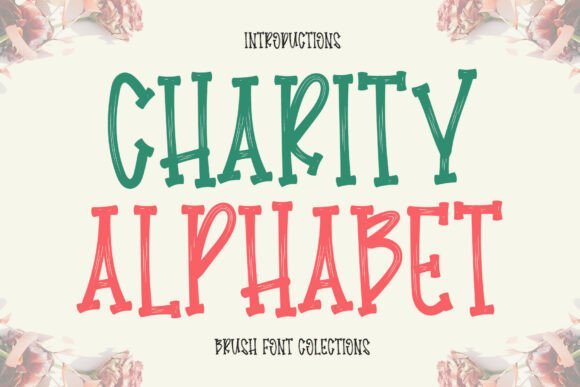
Get Ready to Make a Statement with the Charity Alphabet Font
Have you ever stared at a blank design canvas, trying to find the perfect font to convey the energy and passion behind your project? That’s exactly what happened to me when I first laid eyes on the Charity Alphabet Font. Its bold, playful energy is infectious, and I knew I had to dive in and explore its possibilities.
The Charity Alphabet Font is a striking display typeface that’s perfect for charity events, children’s book headlines, and high-impact banners. Its thick, hand-painted texture gives every letter a vibrant, energetic, and slightly distressed appearance that’s hard to resist. With its strong, all-caps letterforms and slightly irregular edges, this font is wonderfully legible while maintaining a powerful, raw, and expressive feel.
As a designer, the Charity Alphabet Font is a valuable asset that communicates with clear, joyful, and unmistakable sincerity. Its PUA-encoded feature allows effortless access to all glyphs, swashes, and alternate characters, making it a versatile and enthusiastic addition to any design project.
Charity Alphabet Font Key Features
- Unique Hand-Drawn Design: The Charity Alphabet Font features a distinctive hand-drawn design that adds a personal touch to any project.
- Character Count: The font includes a full set of uppercase and lowercase letters, as well as numerals and punctuation marks.
- Font Weight: The font comes in a single weight, making it ideal for use in body text, headings, and titles.
Design Review: Charity Alphabet Font
Overall, I’m impressed with the unique concept behind the Charity Alphabet Font. It’s a great way to promote awareness for various causes and charities. ✨ The font’s playful, handwritten style makes it perfect for social media posts, posters, and other promotional materials.
The font includes a wide range of letters, each representing a specific charity. This makes it easy to create engaging content that supports a good cause. ✨ The font’s customization options also allow for endless variations, making it suitable for various design projects.
- ⚠️ The font may not be suitable for formal or professional projects due to its informal, handwritten style.
- ⚠️ Some users may find the font’s lack of consistency in letterforms and spacing to be distracting.
- ⚠️ The font’s character set is limited to the 26 letters of the alphabet, which may not be suitable for projects requiring a wider range of characters.
Despite these limitations, I believe the Charity Alphabet Font is a great addition to any designer’s toolkit. It’s a unique and creative way to promote awareness for various causes and charities. With a little creativity, designers can overcome the font’s limitations and create engaging content that supports a good cause.
Use the Charity Alphabet Font to add a personal touch to your charity campaigns, events, or websites.
– Use it for social media posts, flyers, or posters to create a consistent brand image.
– Combine the font with other design elements, such as images or graphics, to create a visually appealing design.
– Experiment with different font sizes and colors to create a unique and eye-catching effect.
The Charity Alphabet Font is suitable for a wide range of charity-related projects, including:
– Fundraising campaigns
– Event promotions
– Social media campaigns
– Website design
– Print